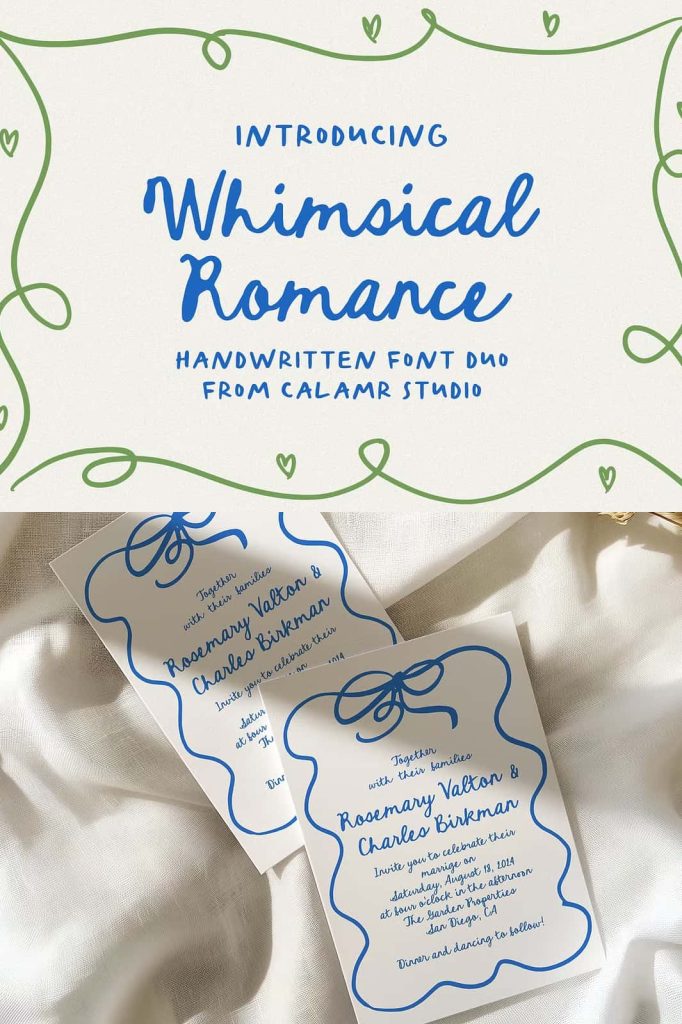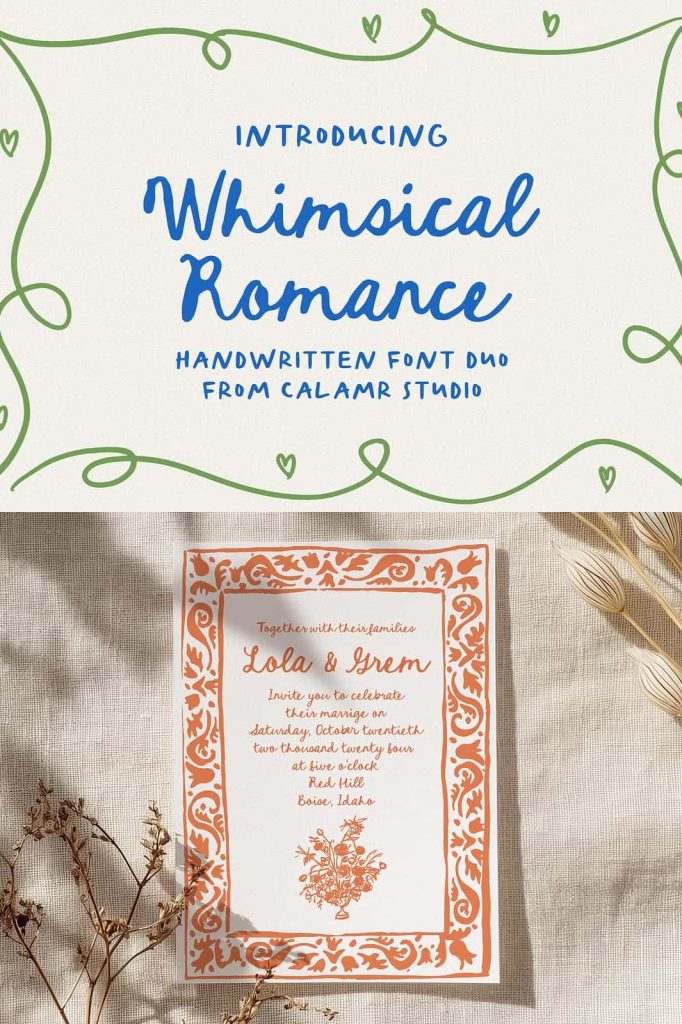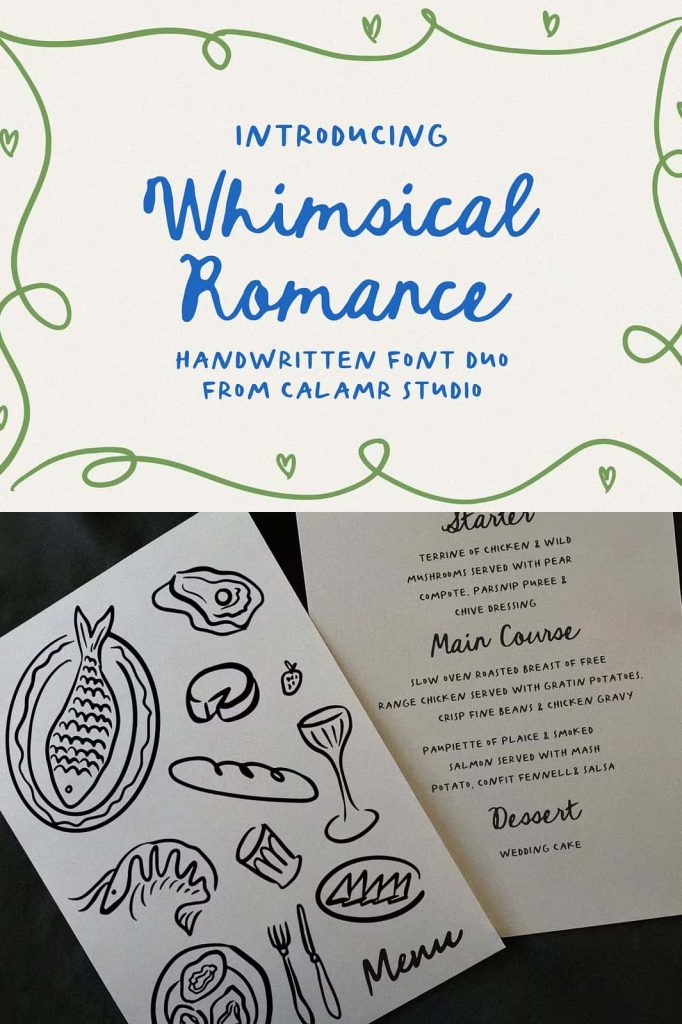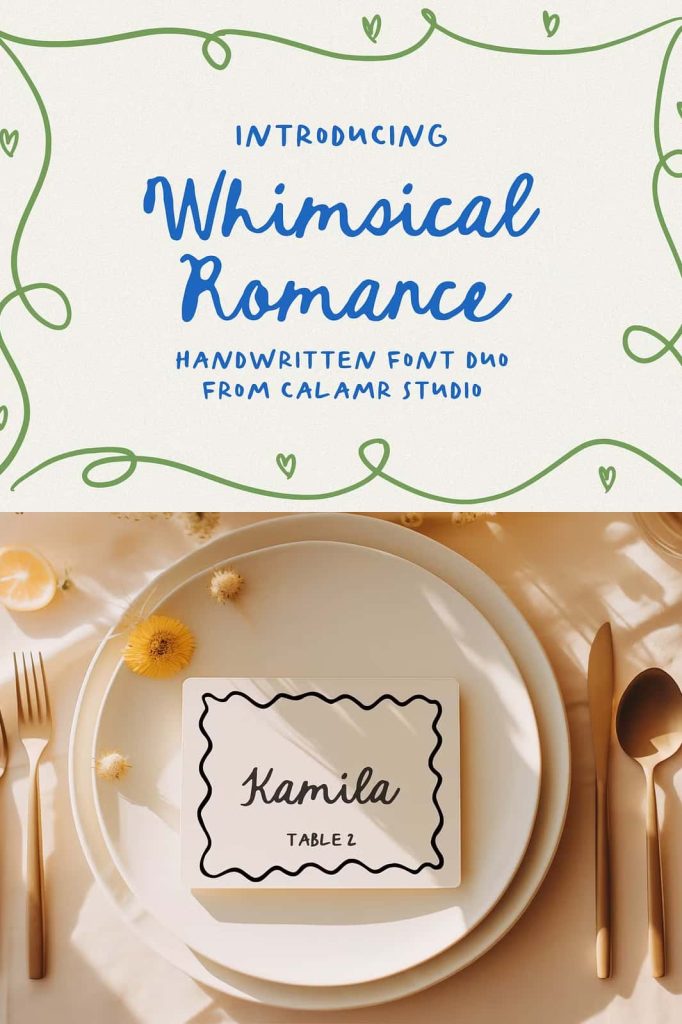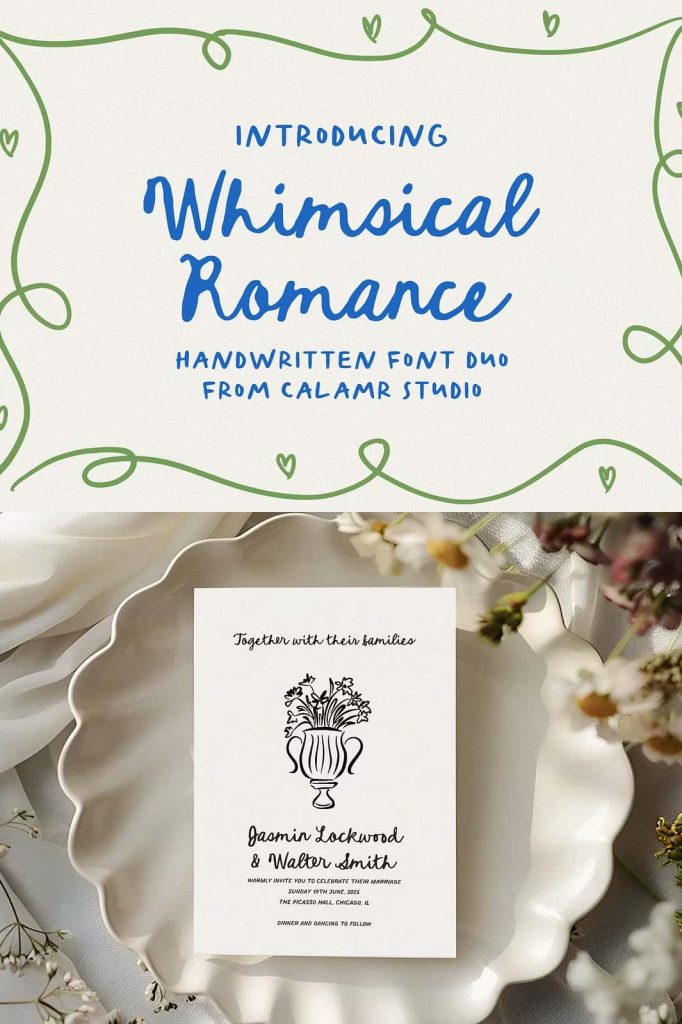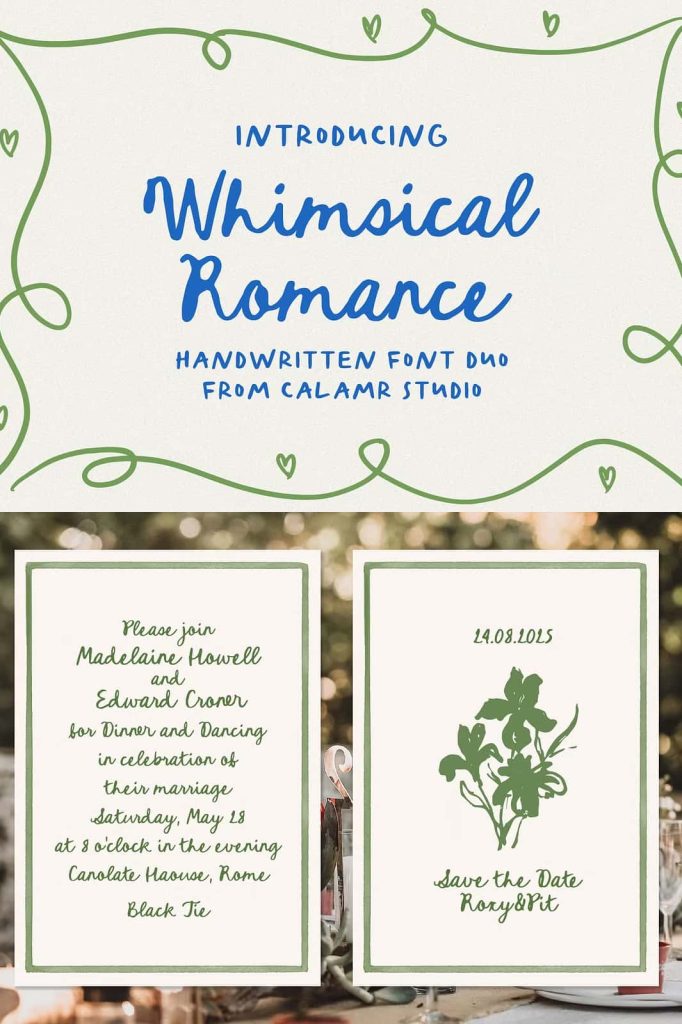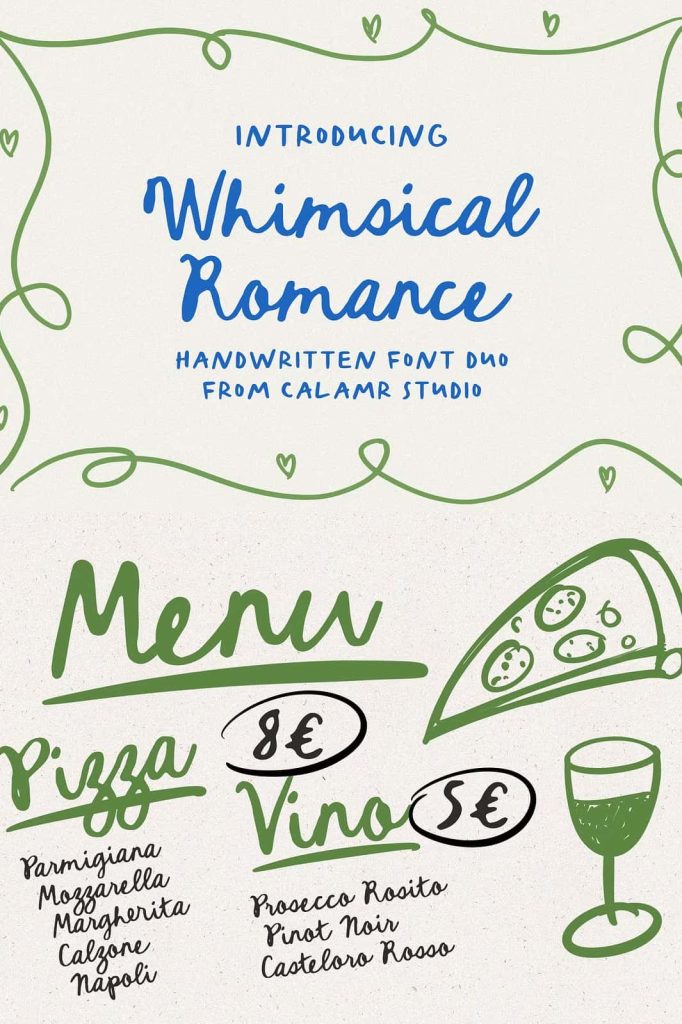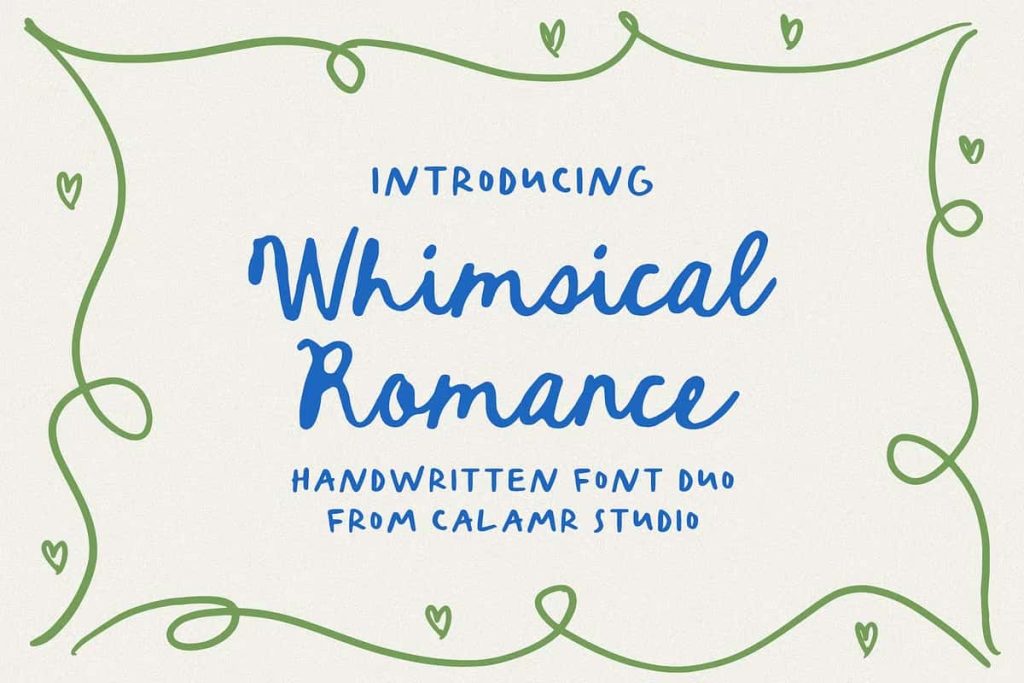
Whimsical Romance Handwritten FontleastedJuly 8, 2025Fonts Introduce you my new handwritten font duo that combines two trendy whimsical fonts look like natural handwriting. Download